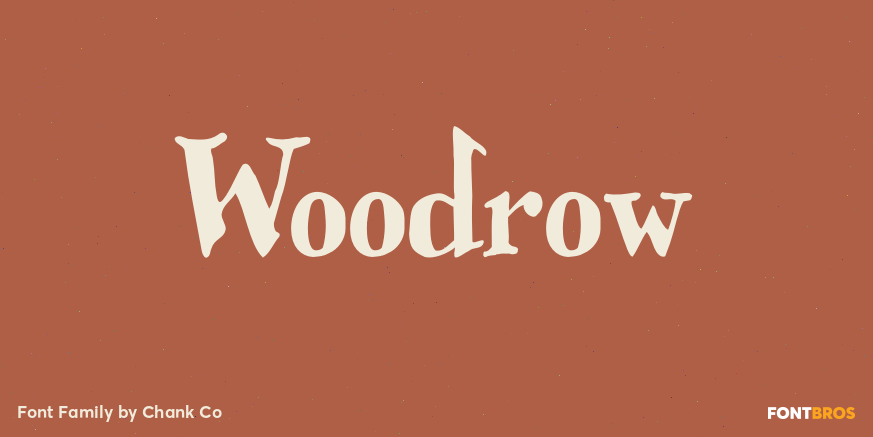
HomeFont BrosSerifWoodrow SerifWacky Woodrow FacebookXPinterestWhatsApp 1 of 1 About Woodrow is bold, bouncy, fun and legible like Mister Frisky, but it is also a little more traditional and structured.  DOWNLOAD NOW People also explored Santiago Hendrick Font Holly Jolly Font Andhika Finta Font Grand Grinch Font The Melancholy Font Candy Font Baby Bee Font Shenttica Font MultiType Lines Narrow Font 298 0 TagsWoodrowWoodrow Font Previous articleHoneymoonNext articleSatisfaction Pro LEAVE A REPLY Cancel reply Comment: Please enter your comment! Name:* Please enter your name here Email:* You have entered an incorrect email address! Please enter your email address here Website: Save my name, email, and website in this browser for the next time I comment. Personal Use Free BD Beans Personal Use Free Read more about this font Strings Personal Use Free Read more about this font Splatter Splash Personal Use Free Read more about this font Happy Garden Personal Use Free Read more about this font BLOG Free vs Paid Fonts: Why Investing in Premium Fonts Is Worth It Free vs Paid Fonts: Why Premium Fonts Are Worth It in 2025 The debate of free vs paid fonts continues in the design world. While... Fonts That Capture the Spirit of New York City The 10 Best Handwriting Fonts to Add Personality to Your Designs Using Fonts in Digital Marketing: Tips to Strengthen Your Brand Identity